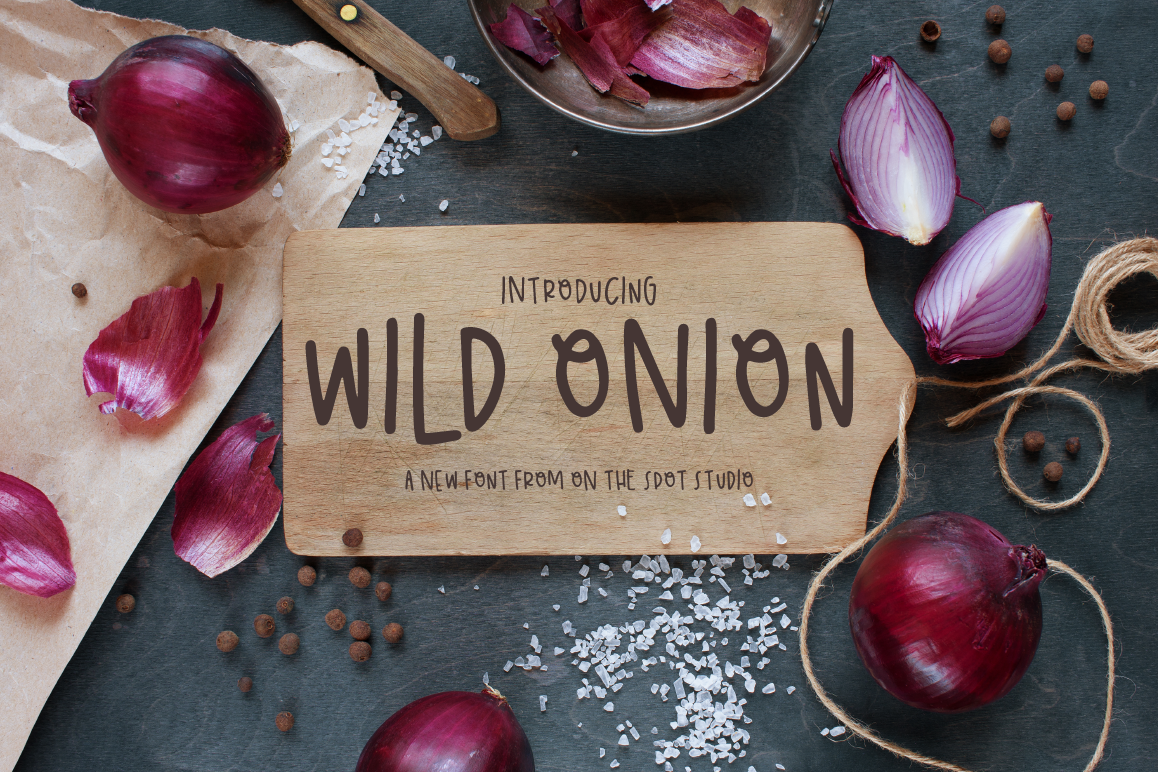
Wild Onion
Hello Wild Onion! Regular & Bold Weights!
Introducing the newest font from On The Spot Studio! Wild Onion is a quirky mixed caps font with that handlettered flair, making it perfect for your branding, advertising, crafting & more!